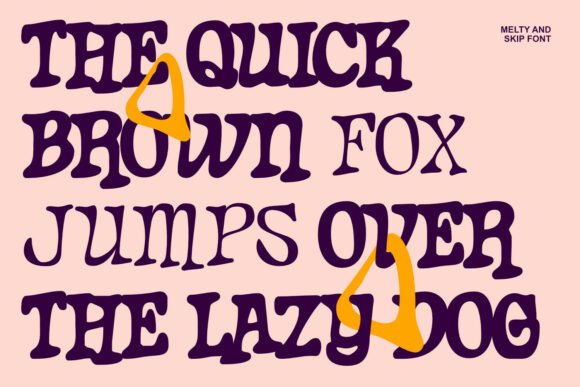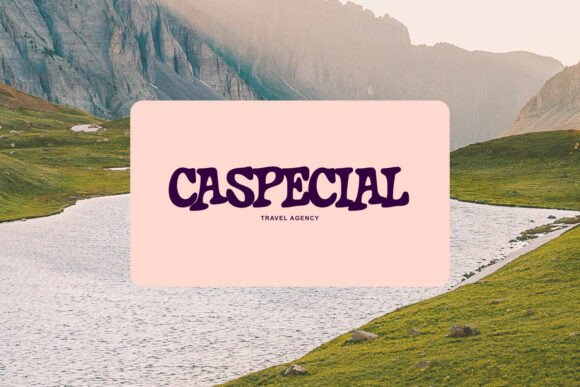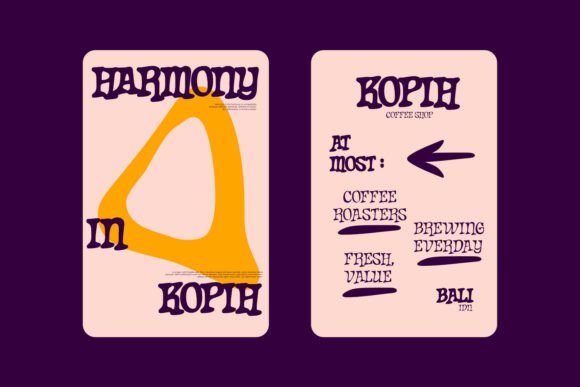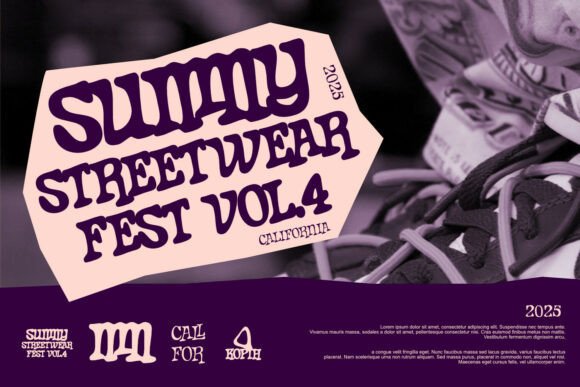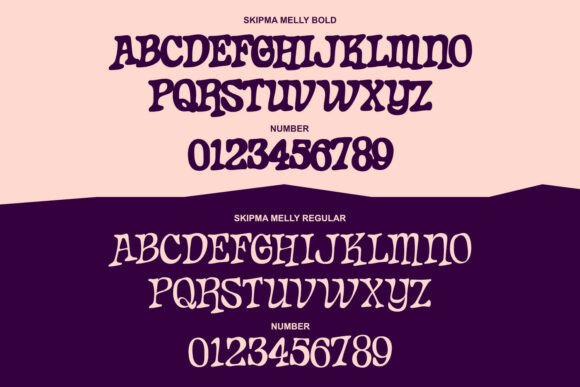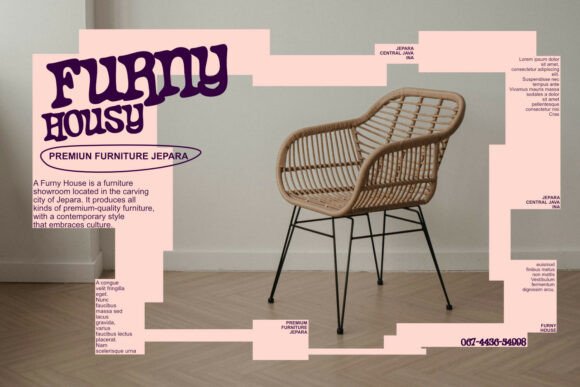
Introduction to Skipma Mally Font Font
Fonts play a crucial role in design, and the Skipma Mally Font font is a typeface that brings both character and versatility to any project. Whether you’re working on a branding project, a website, or a print design, the Skipma Mally Font font offers a unique style that can elevate your work.
A fun font with a random layout but still looks harmonious when read, has ligature features in some of its letters making it look different from the others, this font also consists of two variations, namely Regular and Bold which makes it functional and can be applied to any design, such as Logos, Packaging Designs, Business Cards, Posters, Branding and others.
Key Features of Skipma Mally Font Font
Why Choose Skipma Mally Font Font?
The Skipma Mally Font font is more than just a typeface – it’s a design tool that helps you communicate your message with style and clarity. Its unique character set and versatile design make it suitable for a wide range of applications, from elegant invitations to bold headlines.
With its carefully crafted letterforms and balanced proportions, the Skipma Mally Font font ensures readability and visual appeal across all mediums.
What makes Skipma Mally Font font special?
The Skipma Mally Font font stands out with its unique design, exceptional readability, and versatility across various design applications.